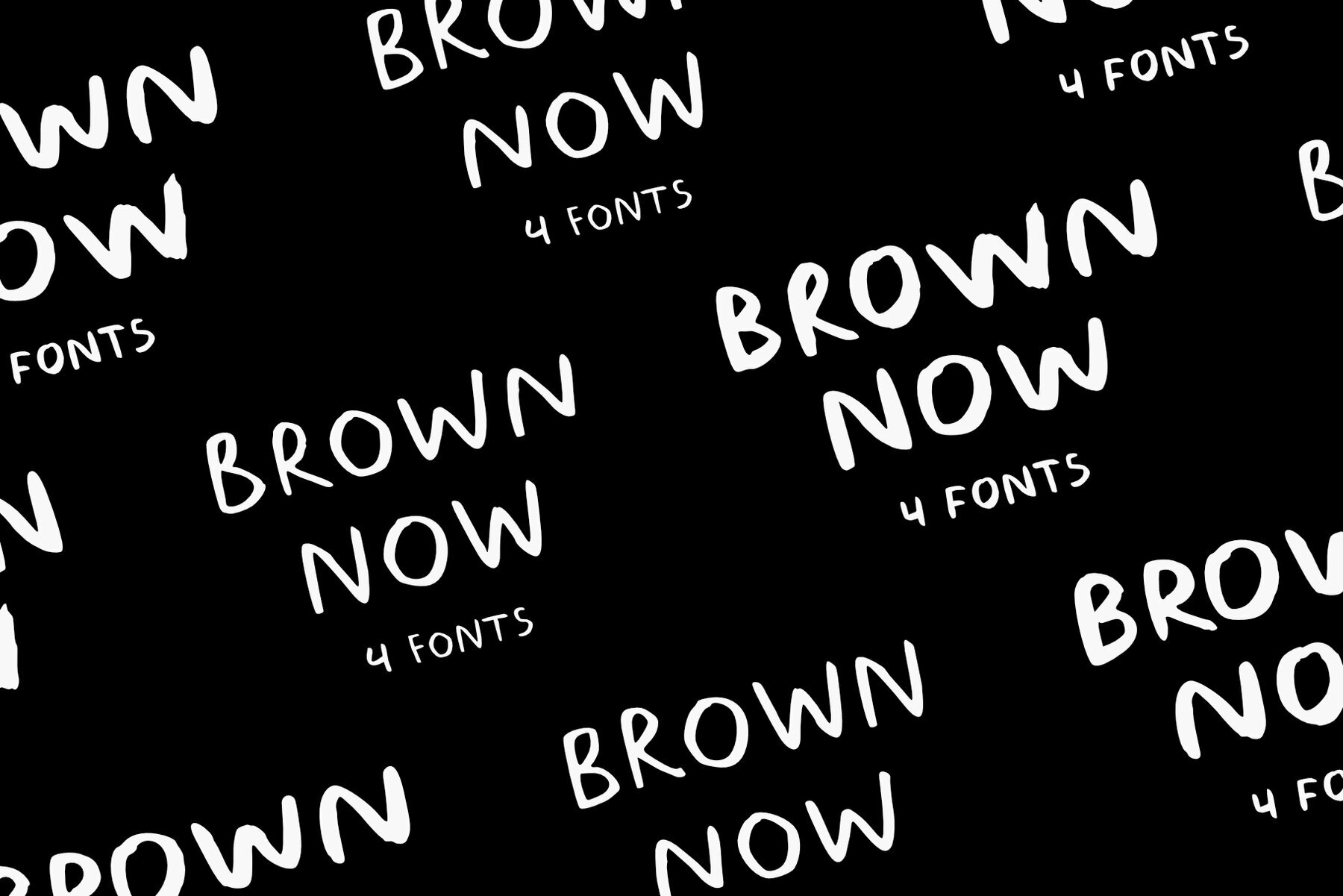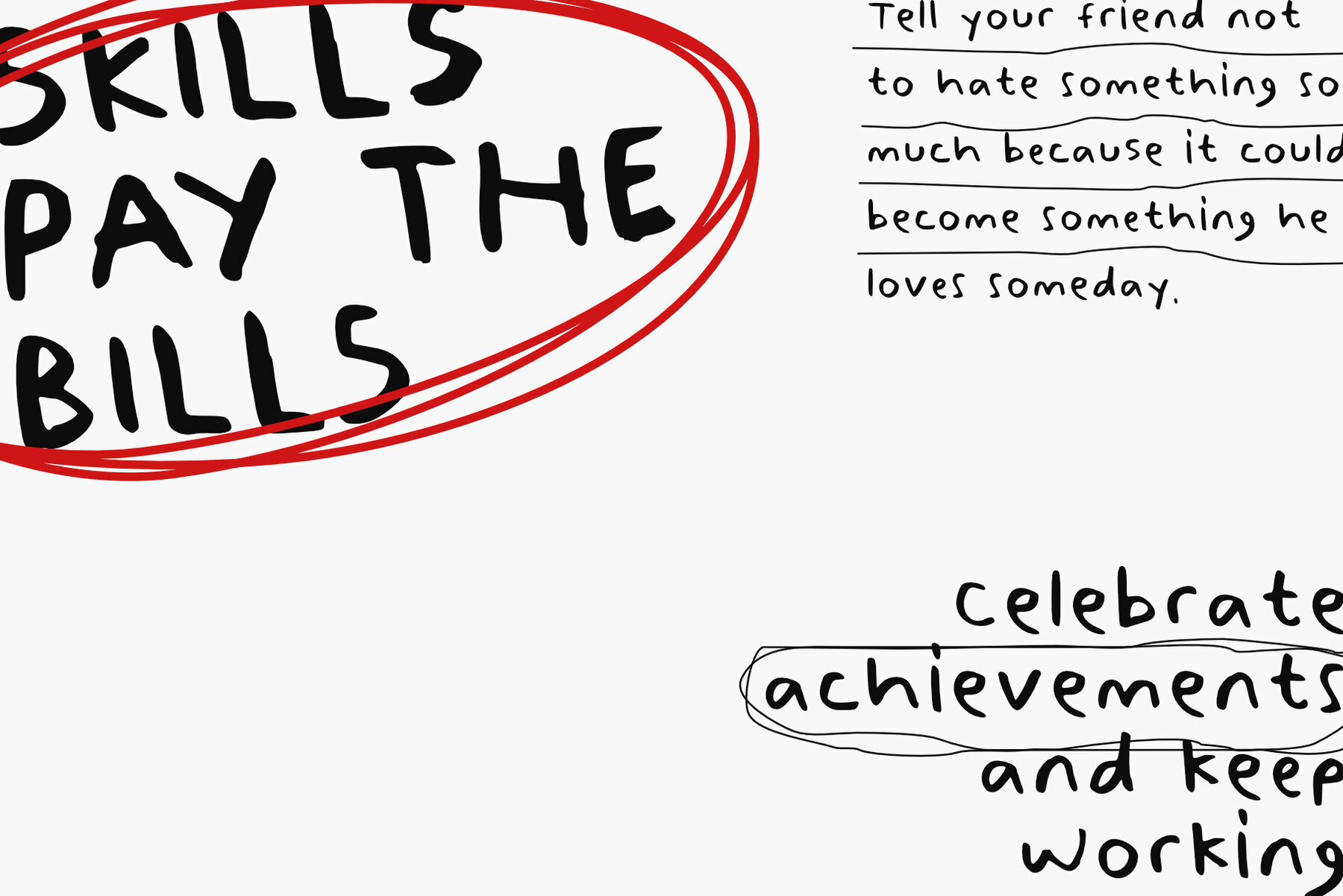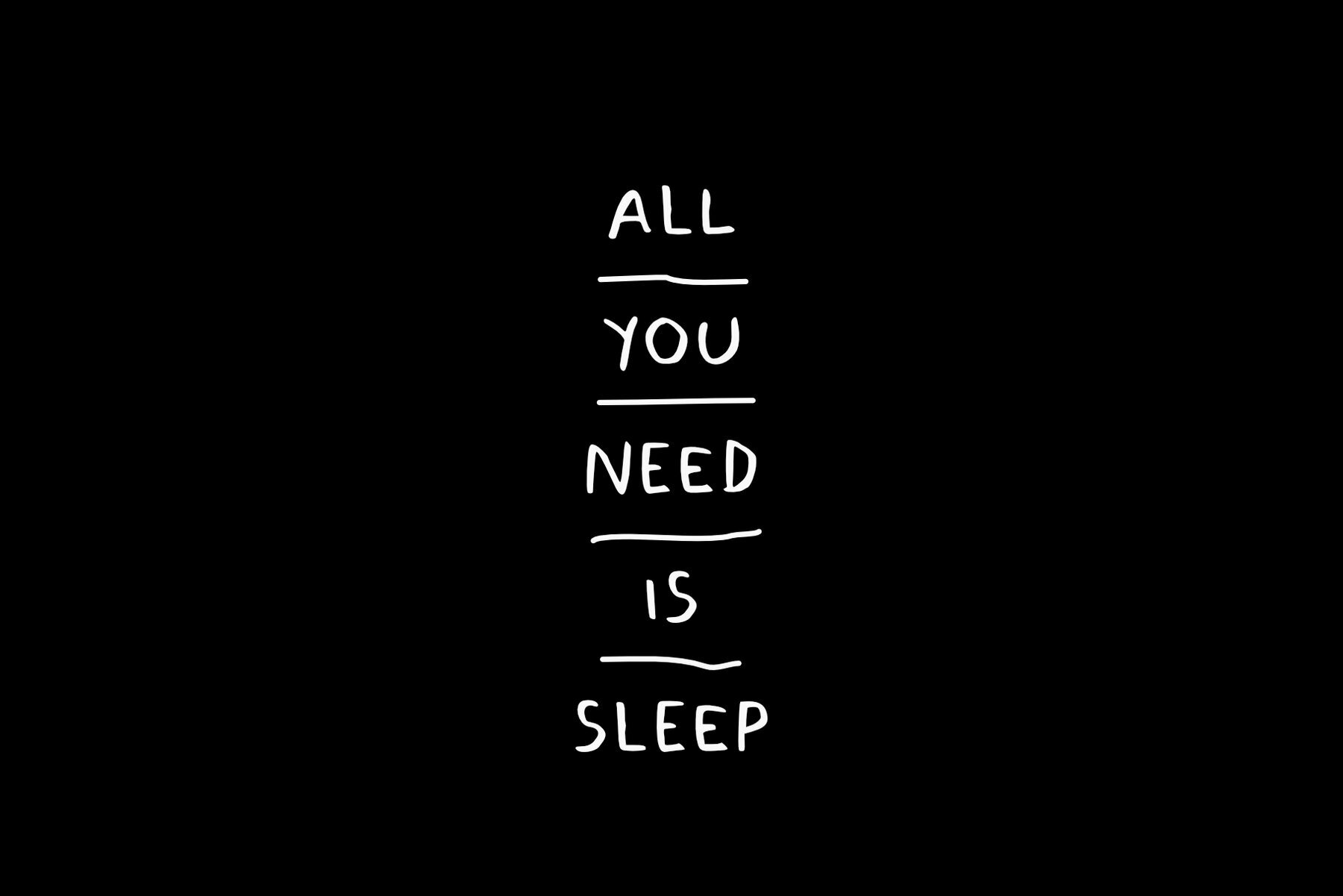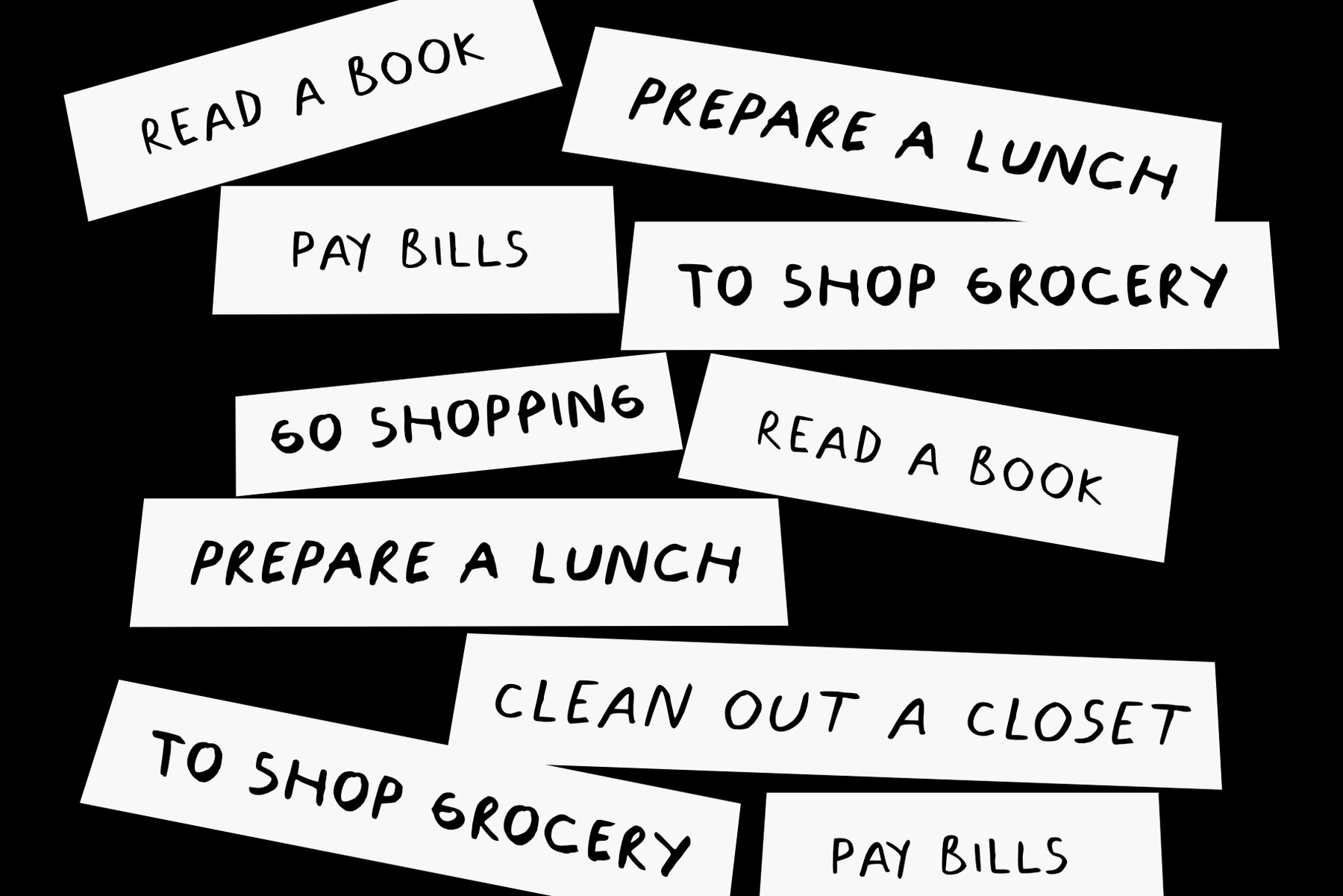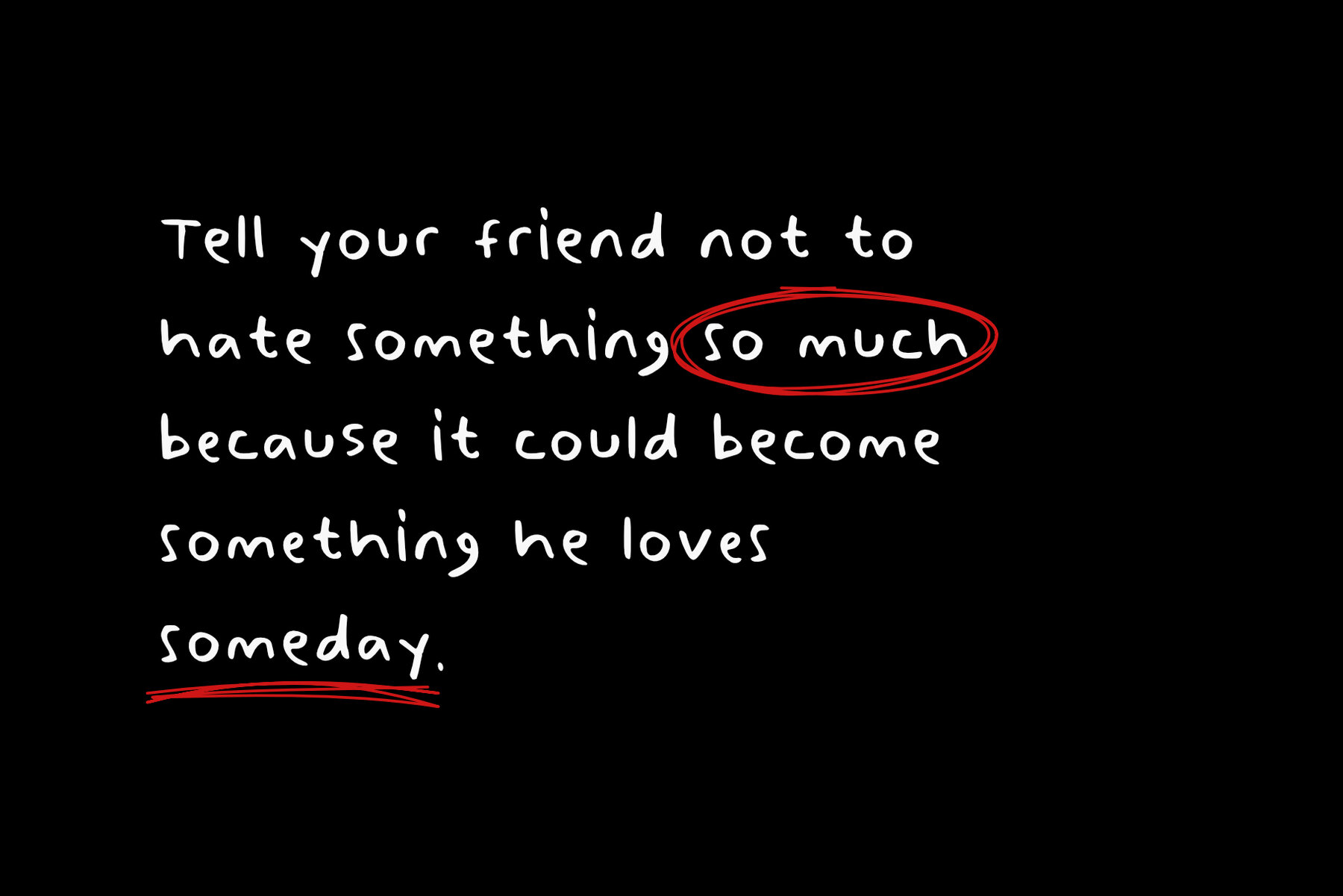
Brown Now Font
Brown Now is a distinctive handwritten font by Studio Fat Cat, crafted directly on paper to deliver a truly unique typing experience. This font features alternative characters that enhance its varied and dynamic feel.Brown Now: Handwritten Font with Unique Character